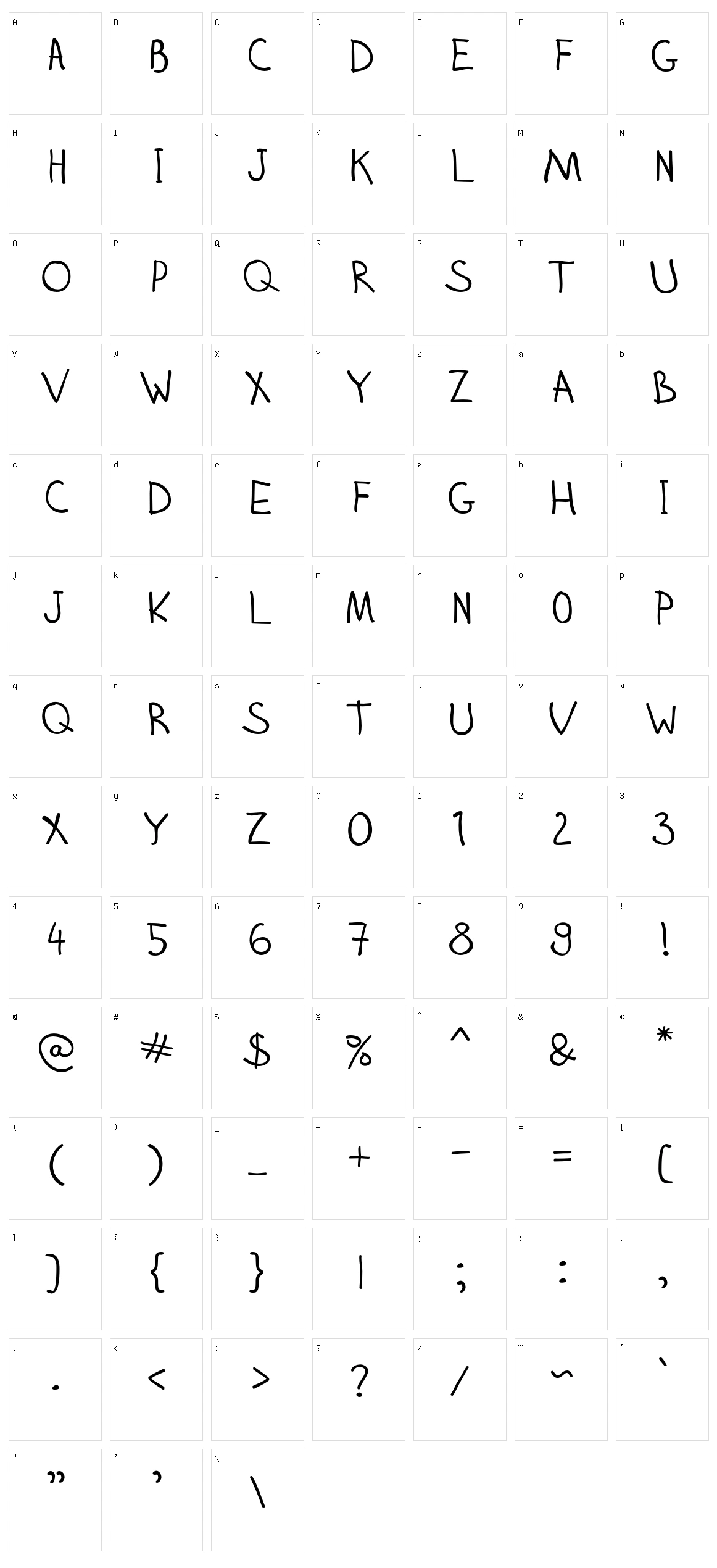
The free font Zhizn is carefully designed by Peter Zharnov, showcasing a thoughtful balance of creativity and usability and falls under the Script font style. When you download the ZIP file, it contains only 24.84 KB of font files, making it lightweight and quick to download. Please review the license details below to understand permitted usage and distribution rights. If license information is not available, we recommend using this font for personal projects only or contacting the author directly for commercial usage permissions.